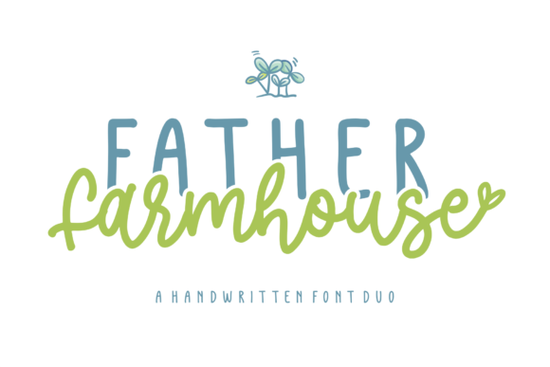
If you're looking for a font that feels warm, personal, and just a little bit playful, Father Farmhouse Font might be exactly what your next project needs. It’s a two-part design combining a soft script with a clean sans serif that works well in both casual and polished settings. Whether you’re making greeting cards, designing stationery, or creating branding for a small farm-themed business, this duo font brings character without overwhelming the layout.
What makes Father Farmhouse Font stand out?
The charm of this font lies in its balance. The script version has gentle swashes and subtle curves that feel hand-drawn but remain readable. It's not overly decorative, so it won’t distract from your message. Meanwhile, the matching sans serif is simple and modern perfect for body text, addresses, or short labels. Together, they create a cohesive look that feels intentional, not random.
You’ll find it especially useful when you want to add personality to printed materials. Think wedding invites with a rustic touch, baby shower announcements with a cozy vibe, or even product labels for handmade soaps and candles. The combination gives your work a friendly, thoughtful tone like a note from someone who truly cares.
Where can you use Father Farmhouse Font?
- Stationery sets – envelopes, thank-you cards, and letterheads with a personal feel
- Print-on-demand designs – T-shirts, mugs, and tote bags with farm-inspired themes
- Branding for small businesses – farms, boutiques, or artisan shops wanting a warm image
- Craft projects – scrapbooking, invitations, and DIY decorations
Because it’s a duo font, you can mix and match styles easily. Use the script for headings and titles, and the sans serif for details like dates or prices. This flexibility helps keep your design consistent while still allowing room for creativity.
How does it compare to other popular script fonts?
If you’ve worked with similar fonts like Cream Candy Font, ShadySpeed Script Font, or Dahlia Font, you’ll notice that Father Farmhouse sits somewhere between delicate and bold. It’s not as ornate as some, nor as strict as others. That middle ground makes it ideal for everyday creative work where you want something charming but not too flashy.
For those who love a more structured yet warm look, Braveston Font offers a similar balance, while Handmade Font leans into a more textured, imperfect style great if you prefer a truly handcrafted look.
Is it easy to use across different platforms?
It also scales well. Whether you’re designing a tiny label or a large banner, the font keeps its clarity and charm. No pixelation, no fuzzy edges just clean lines every time.
Final thoughts: Who should try this font?
If you’re a crafter, small business owner, or hobbyist working on visual projects that benefit from a warm, approachable tone, this font could become a staple in your toolkit. It’s not just another pretty script it’s practical, versatile, and designed with real use in mind.
And if you’re exploring other options in the same style, check out how Father Farmhouse compares to fonts like Cream Candy, ShadySpeed, Dahlia, Braveston, and Handmade. Each has its own mood and purpose, but Father Farmhouse stands out for its balanced, everyday usability.